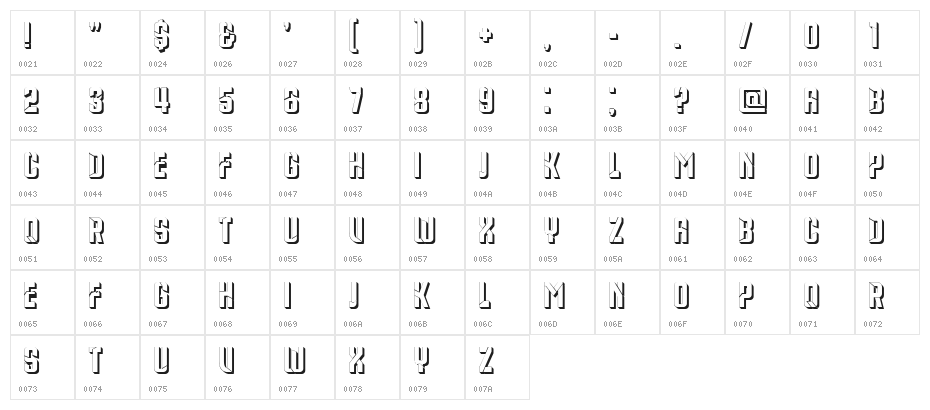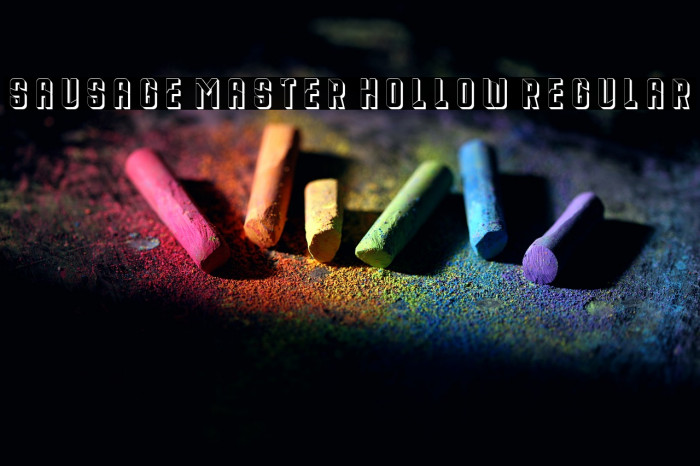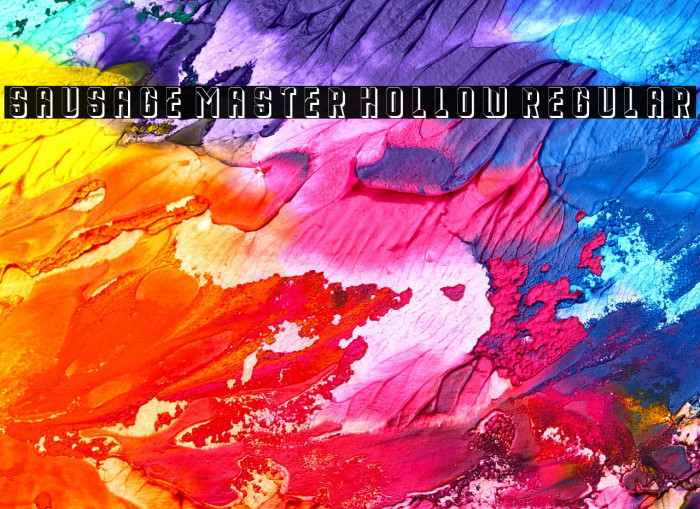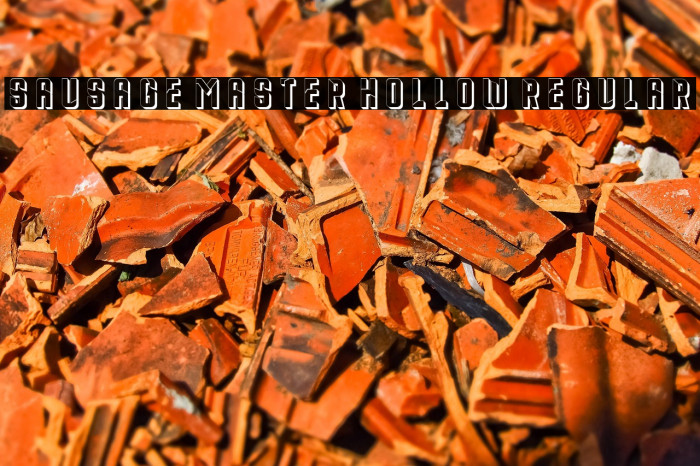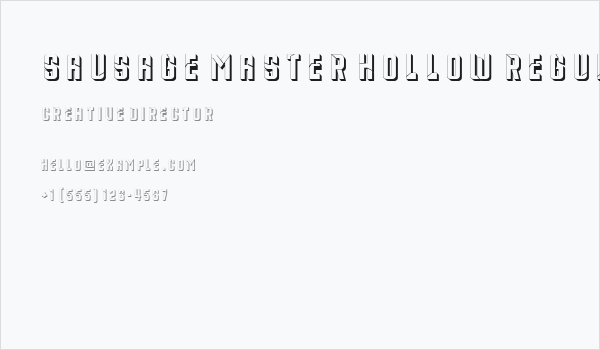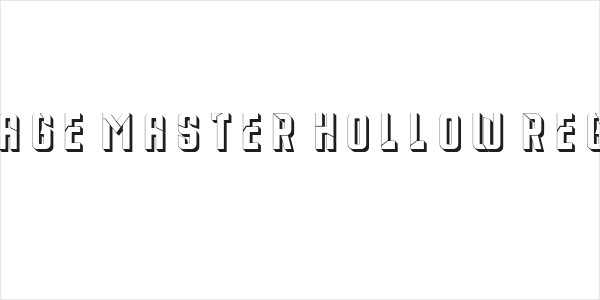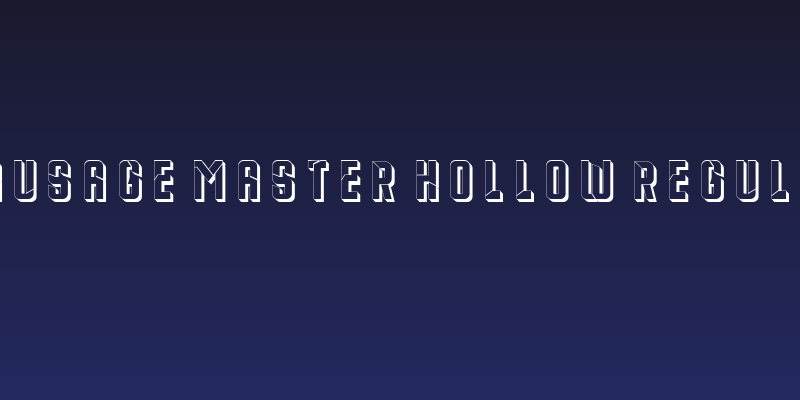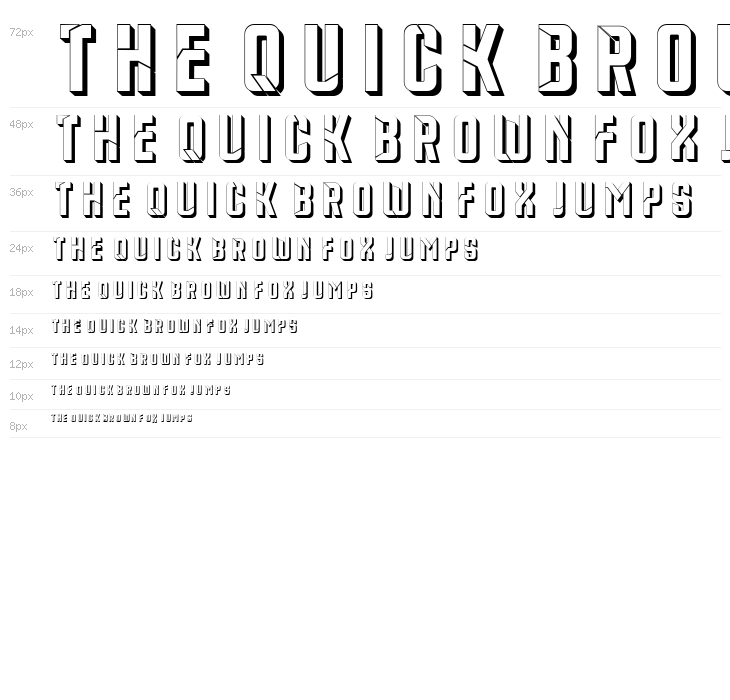
Sausage Master Hollow Regular Font
Sausage Master Hollow Regular Description
This font features a bold, hollow design with a three-dimensional effect, giving each character a sense of depth and shadow. The uppercase and lowercase letters maintain a consistent geometric structure, with sharp angles and clean lines. The numbers and special characters follow the same style, ensuring uniformity across all glyphs. The font's distinct hollow appearance makes it stand out, ideal for eye-catching designs. Its boldness and unique style make it suitable for projects that require a strong visual impact.
| Proposed Projects | Ideal for posters, logos, headlines, and any design needing a striking visual impact. |